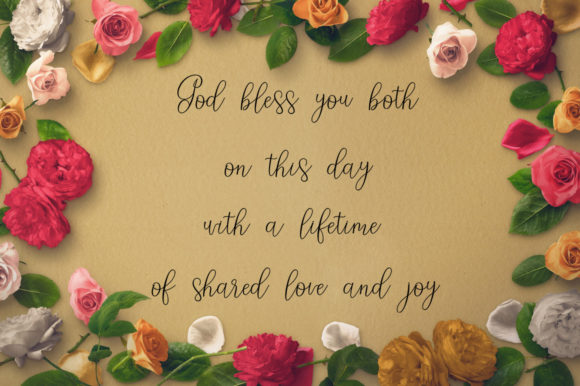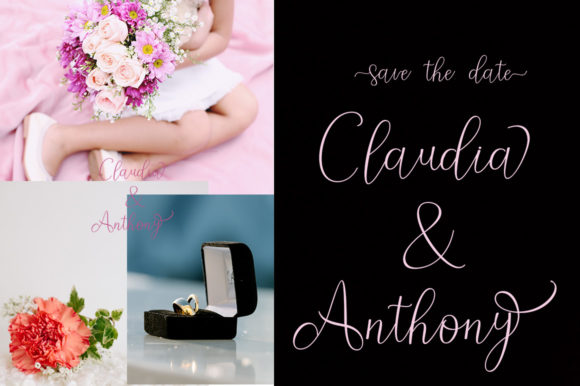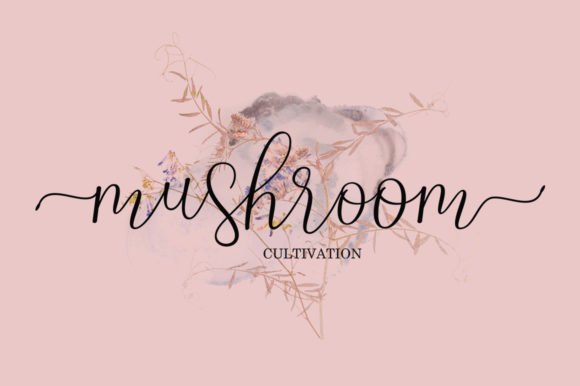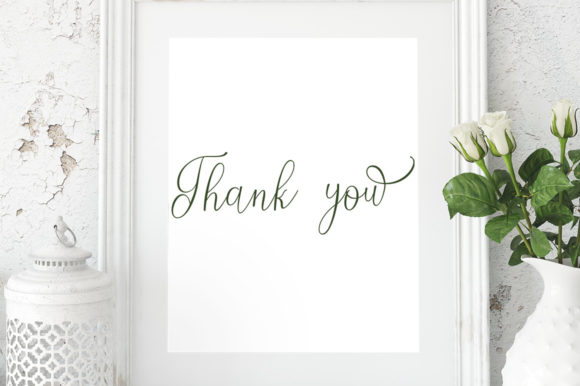
Nathasyia Script Font
About Nathasyia Script Font
The Nathasyia is a sweet, modern script font. It has a casual, yet dynamic look with an amazing dancing baseline.
It’s perfect for logos, branding, greeting cards, quotes, wedding stationary, and much more!